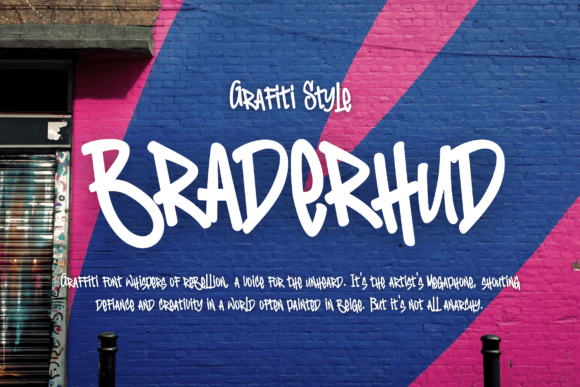
Braderhud Font: Adding a Playful Twist to Your Designs
Are you looking for a font that can add a dash of playfulness and personality to your designs? Look no further than Braderhud, a graffiti-style font that’s perfect for creating eye-catching headlines, vibrant posters, and playful branding projects. In this article, we’ll take a closer look at the Braderhud font, its unique features, and how you can use it to infuse your creations with joy and personality.
What is Braderhud Font?
Braderhud is a graffiti-style font that’s designed to add a playful twist to any design. Its whimsical letterforms and unique charm make it perfect for designs that require a bit of personality and flair. Whether you’re creating a poster, a logo, or a social media graphic, Braderhud is sure to make your design stand out.
One of the key features of Braderhud is its bold and vibrant lettering style. The font is designed to be attention-grabbing, making it perfect for headlines, titles, and other applications where you want to make a statement. The font is also highly versatile, making it suitable for a wide range of design projects, from playful branding projects to vibrant posters and eye-catching graphics.
Design Applications for Braderhud Font
So, what can you use Braderhud for? The possibilities are endless! Here are a few ideas to get you started:
- Eye-catching Headlines: Use Braderhud to create bold and attention-grabbing headlines that will make your readers sit up and take notice.
- Vibrant Posters: Add a playful twist to your posters with Braderhud’s whimsical letterforms and unique charm.
- Playful Branding Projects: Use Braderhud to create playful and memorable branding projects that will help your business stand out.
- Social Media Graphics: Add a bit of personality to your social media graphics with Braderhud’s bold and vibrant lettering style.
Benefits of Using Braderhud Font
So, why should you use Braderhud for your design projects? Here are a few benefits of using this amazing font:
- Adds Personality: Braderhud adds a bit of personality and whimsy to your designs, making them more engaging and memorable.
- Attention-Grabbing: The font’s bold and vibrant lettering style is designed to grab attention, making it perfect for headlines and other applications where you want to make a statement.
- Highly Versatile: Braderhud is highly versatile, making it suitable for a wide range of design projects, from playful branding projects to vibrant posters and eye-catching graphics.
Tips and Tricks for Using Braderhud Font
Here are a few tips and tricks for using Braderhud effectively in your design projects:
- Use it Sparingly: While Braderhud is a beautiful font, it can be overwhelming if used too much. Use it sparingly to add a bit of personality and whimsy to your designs.
- Pair it with Other Fonts: Braderhud pairs well with other fonts, such as sans-serif fonts like Arial or Helvetica. Experiment with different font combinations to find the one that works best for your design.
- Experiment with Colors: Braderhud looks great in a variety of colors, from bright and bold to pastel and soft. Experiment with different colors to find the one that works best for your design.
In conclusion, Braderhud is a graffiti-style font that’s perfect for adding a playful twist to your designs. Its whimsical letterforms and unique charm make it perfect for eye-catching headlines, vibrant posters, and playful branding projects. With its bold and vibrant lettering style, Braderhud is sure to make your design stand out. So why not give it a try and see how it can infuse your creations with joy and personality?